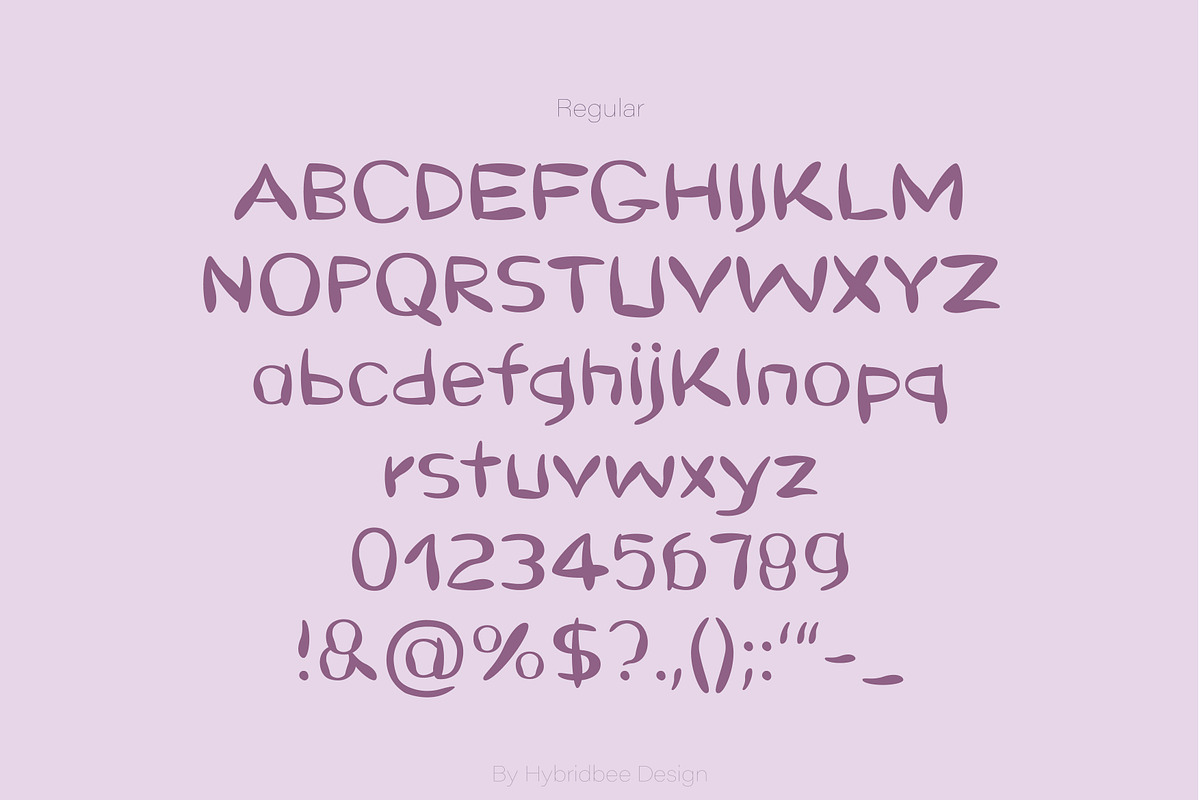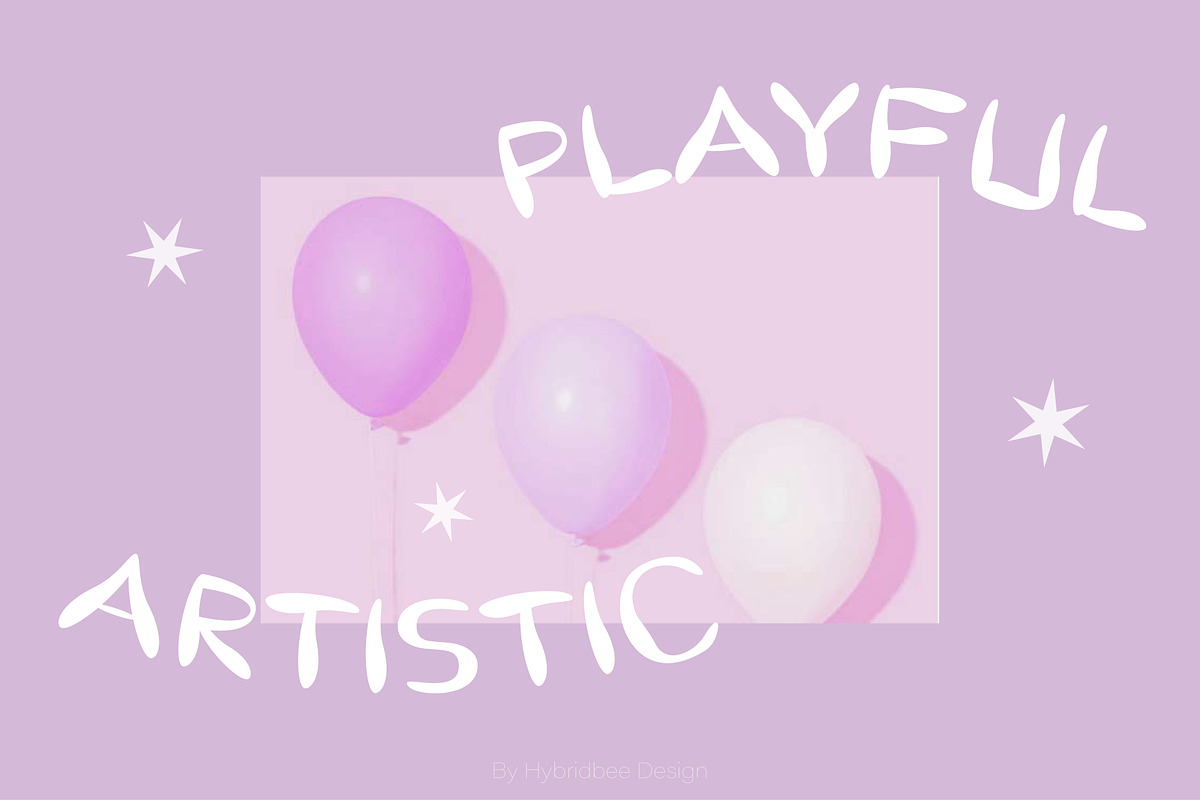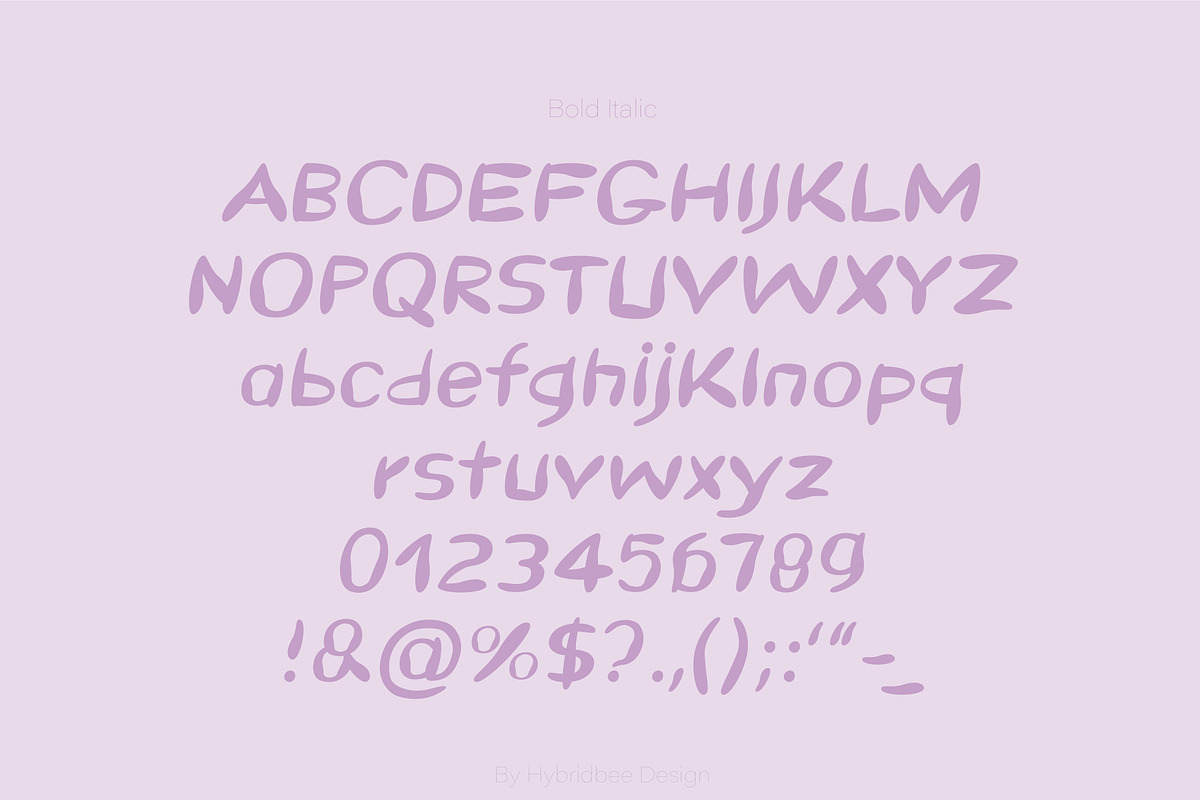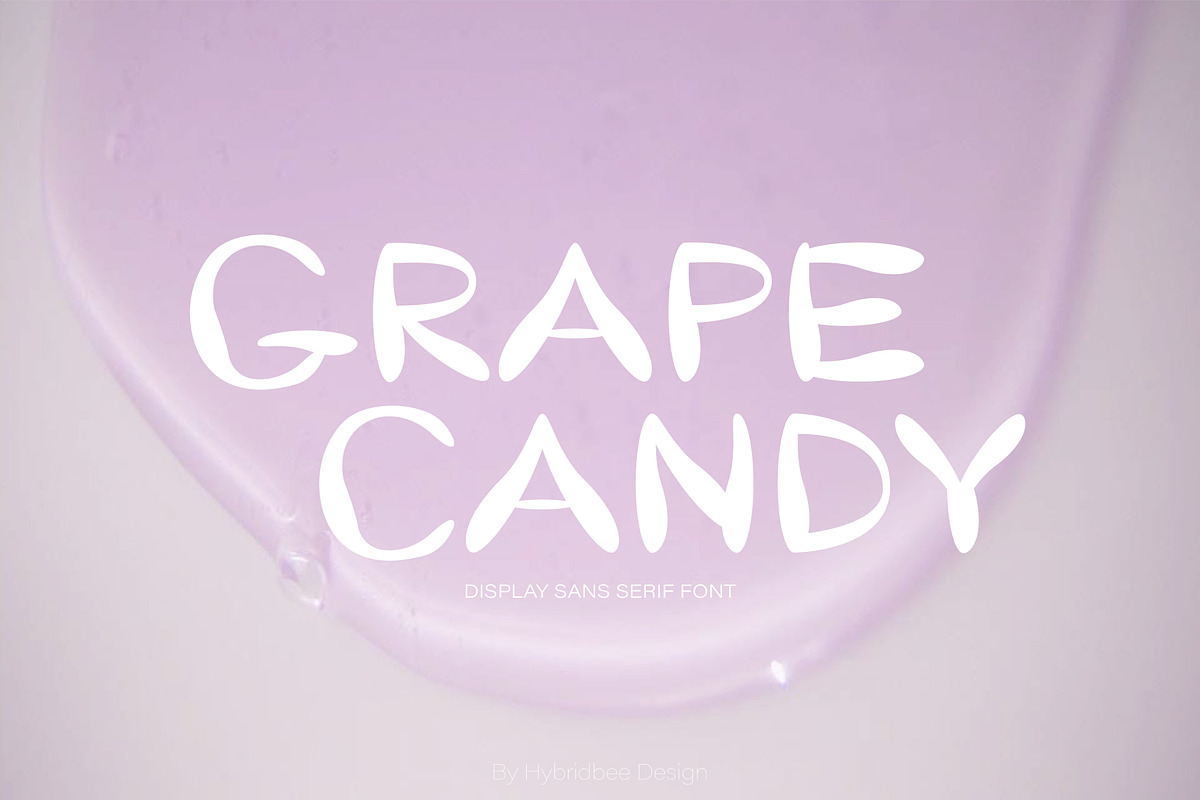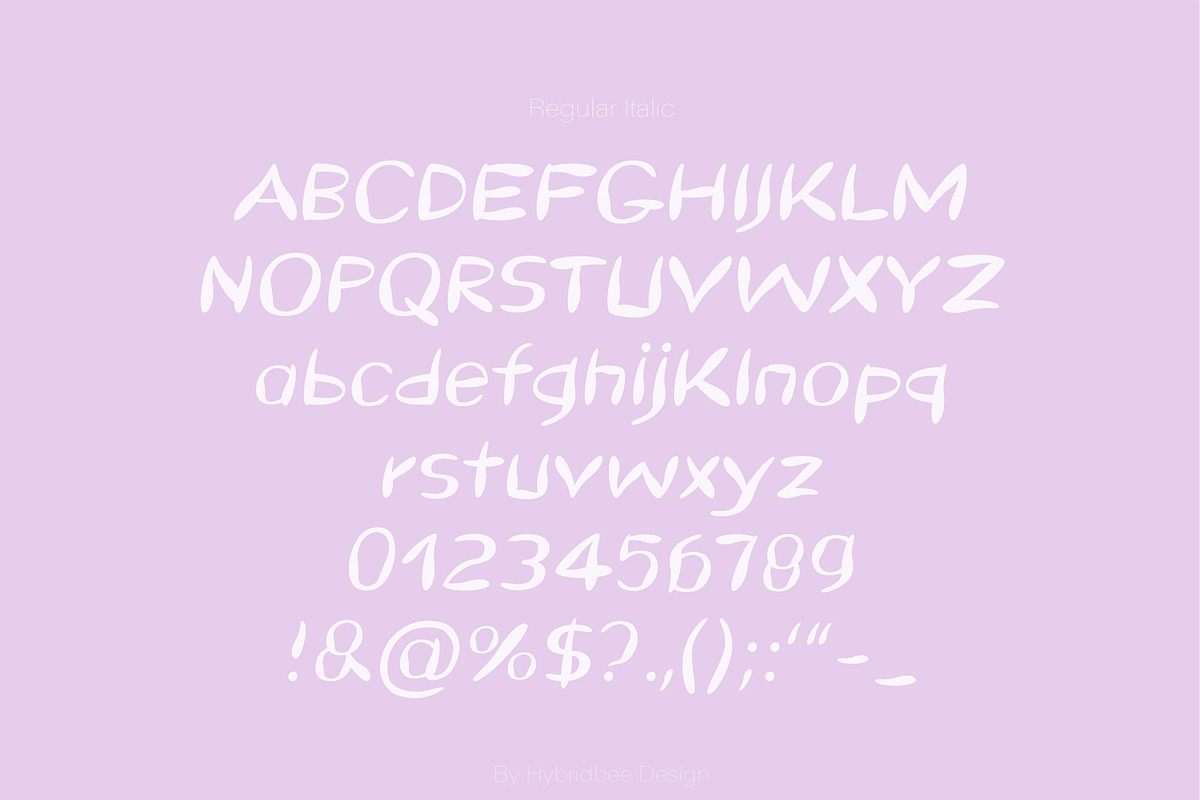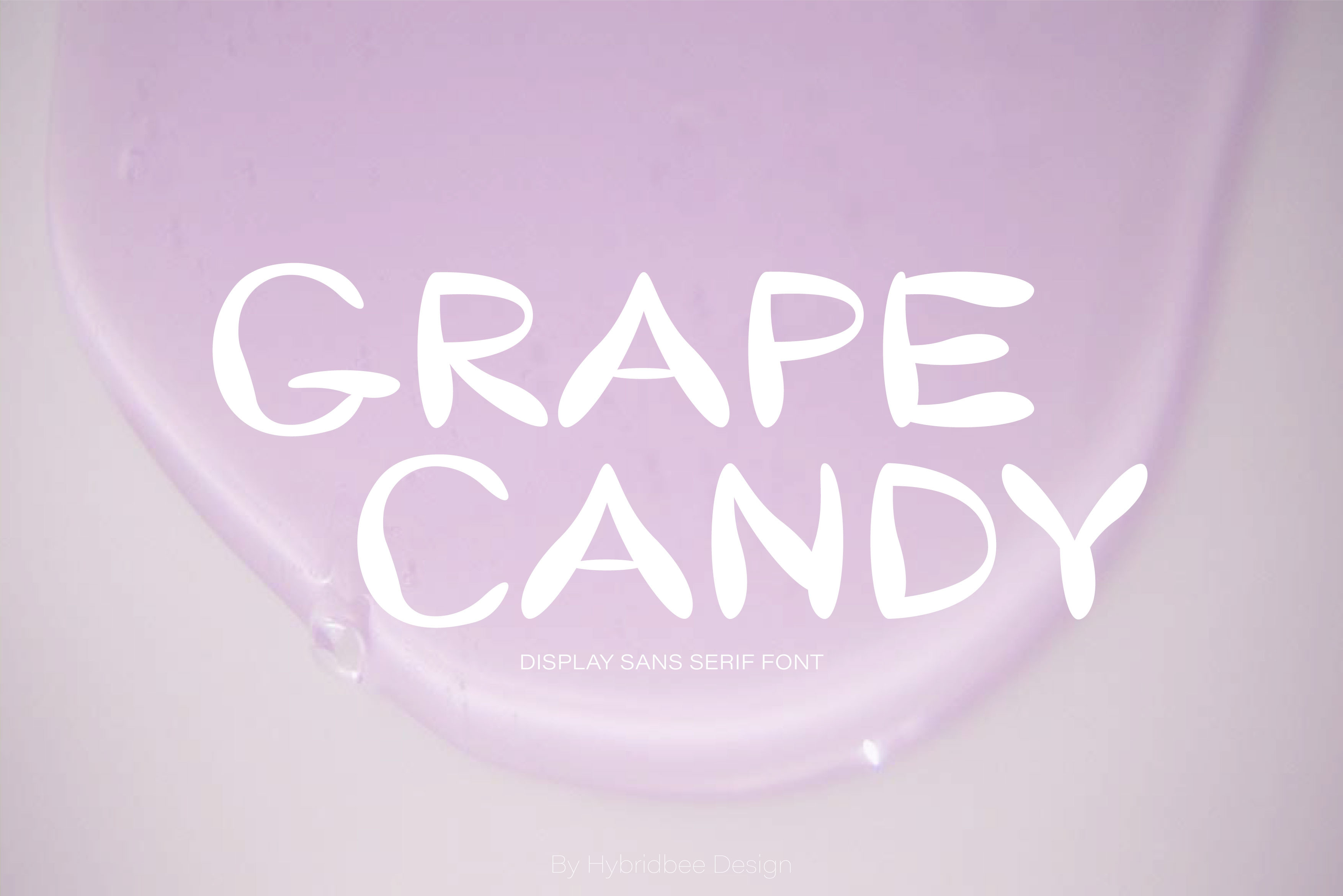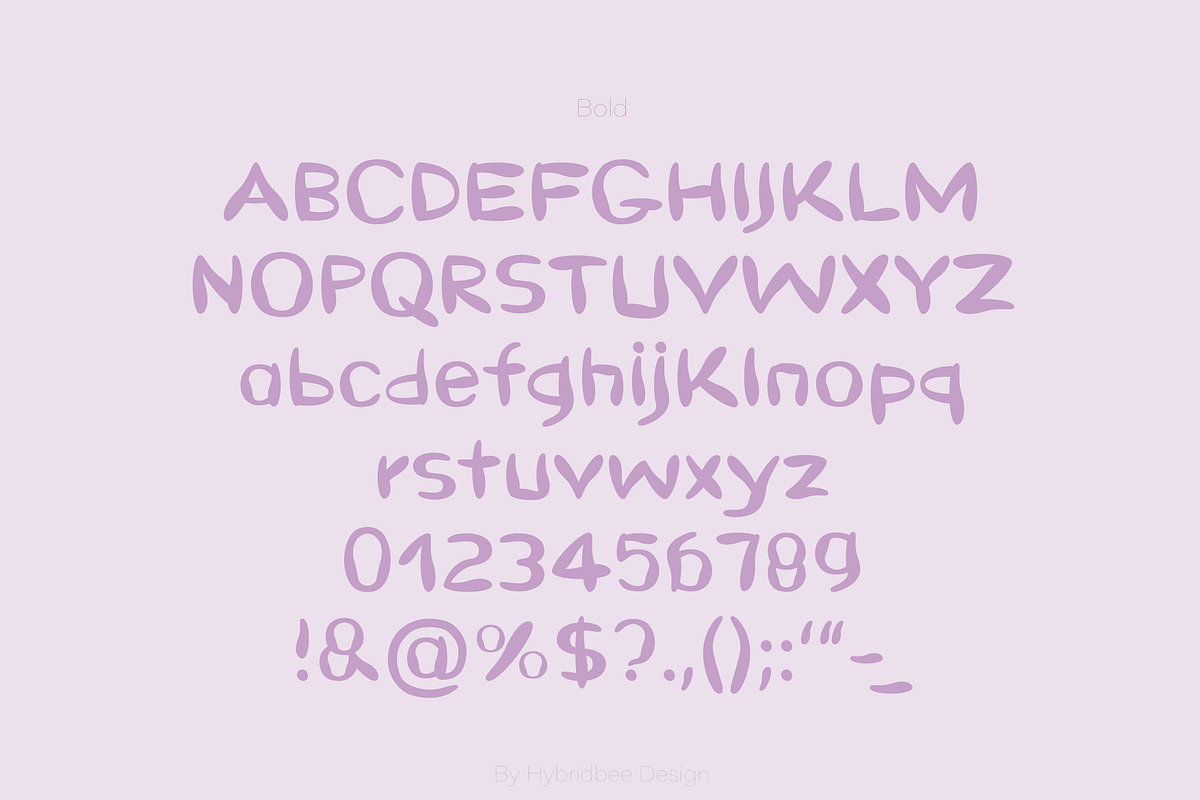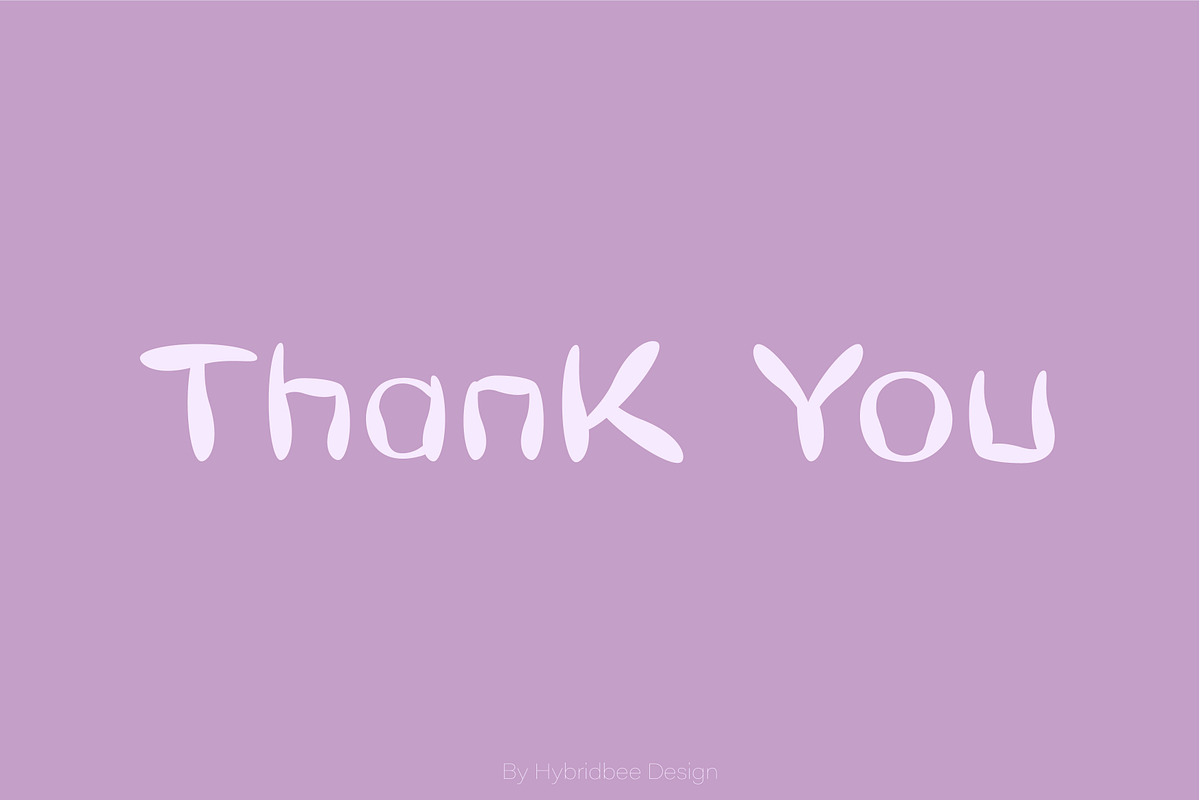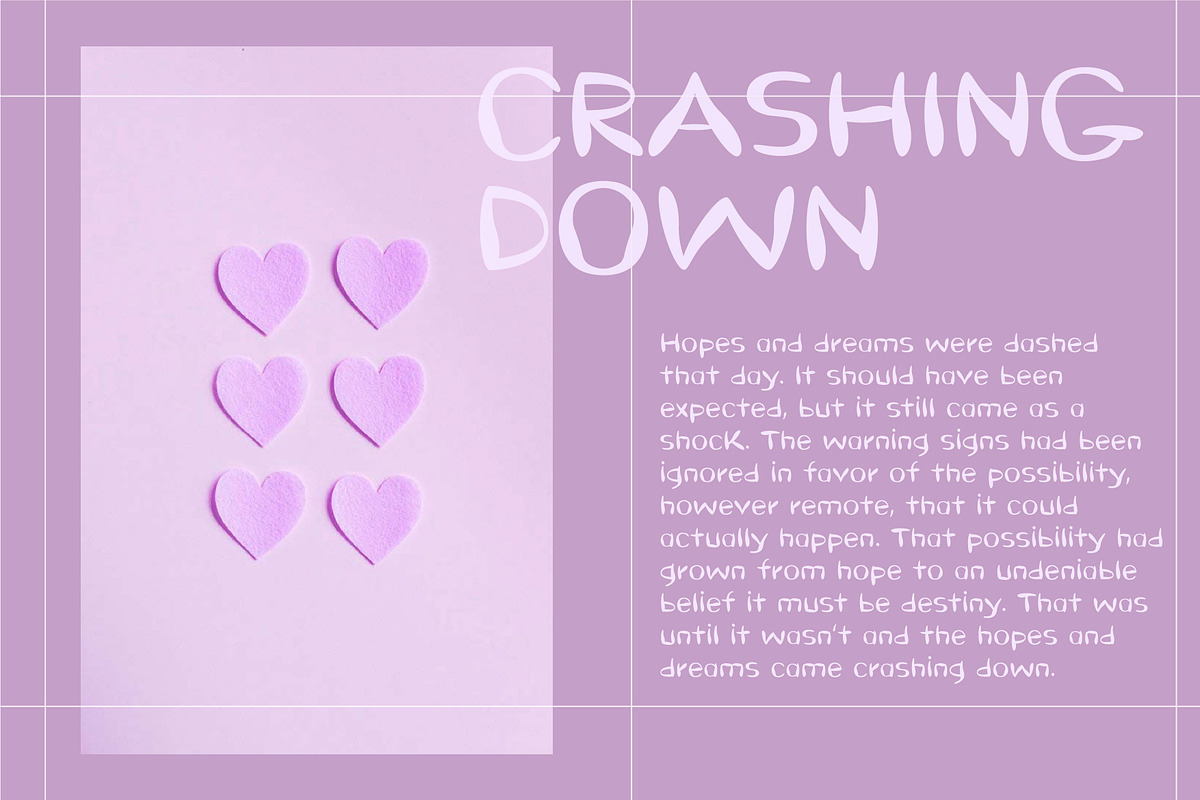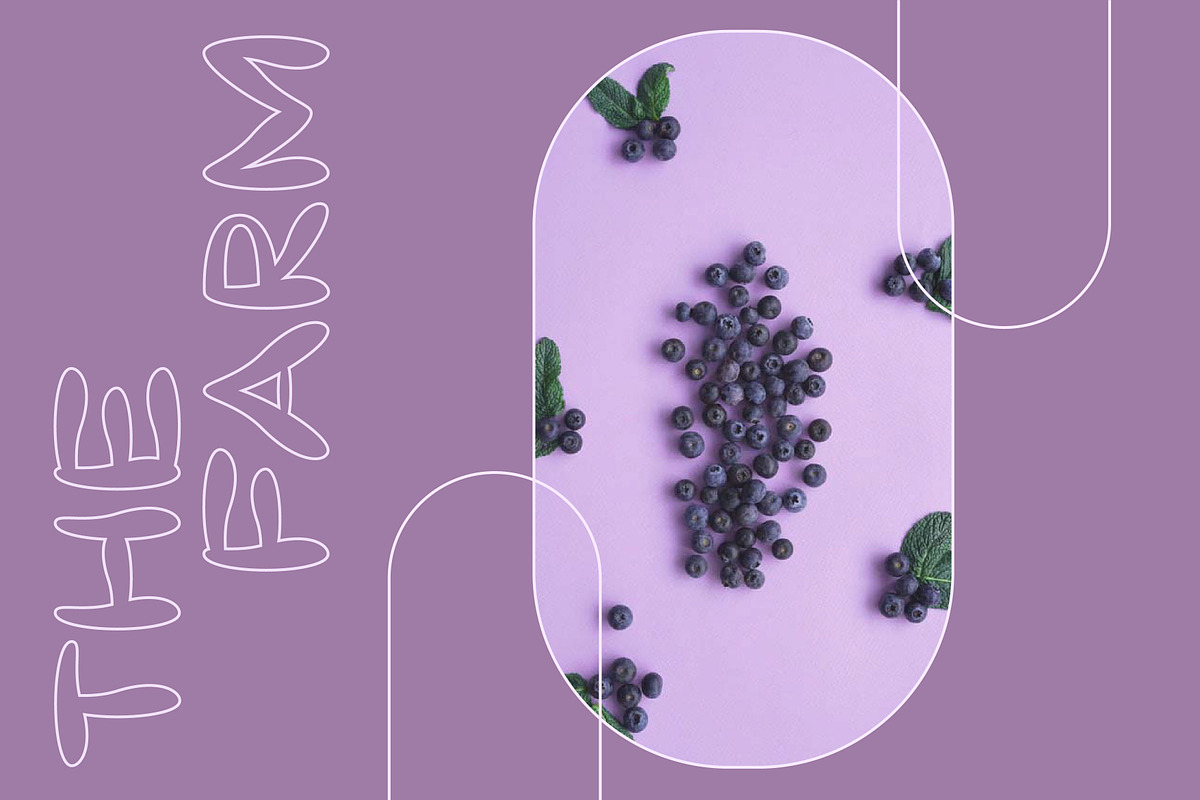
GRAPE CANDY – Sans Serif font
Grape Candy is a sans-serif font with a playful and artistic edge. It includes uppercase letters, lowercase letters, numerals and some punctuations in regular, italic, bold and bold italic. This typeface can be used to create posters, headlines, branding, packaging, logo, web design, and other design needs.